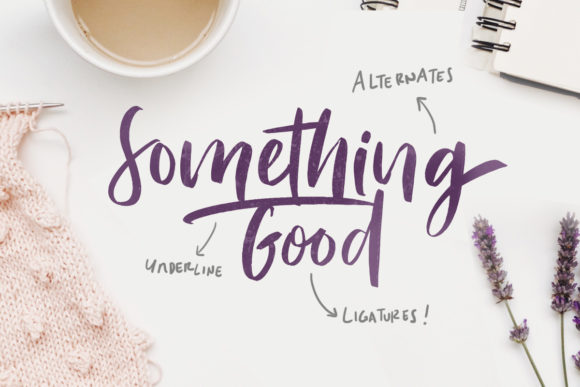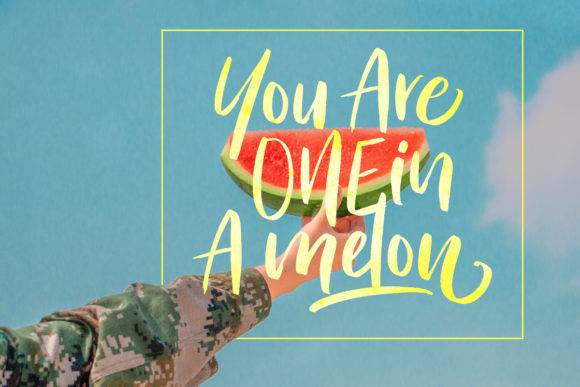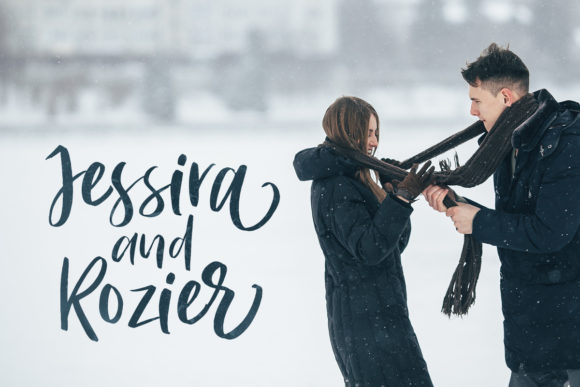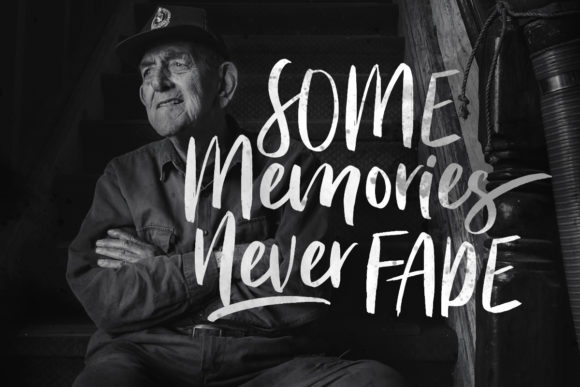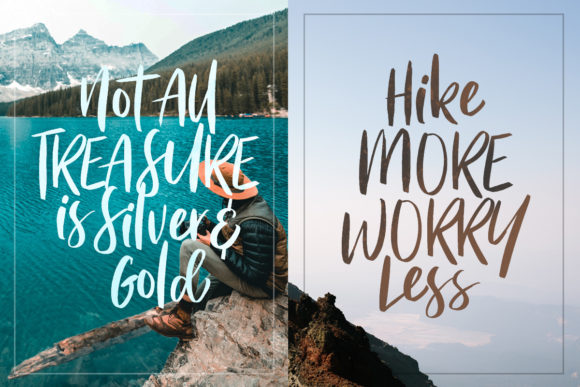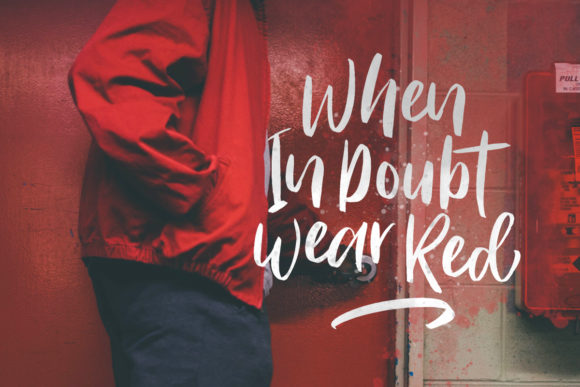
Unleash the Power of Bitter Rose Font: Elevate Your Designs with Elegance and Sophistication
In the world of typography, fonts play a crucial role in conveying the tone and personality of a design. For designers and crafters seeking to add a touch of elegance and uniqueness to their work, the Bitter Rose Font is an exceptional choice. This striking script font boasts bold letters with excellent readability, making it an ideal selection for a wide range of design projects that demand a distinctive look.
What Makes Bitter Rose Font Stand Out?
The Bitter Rose Font is not just another script font; it’s a statement piece. Its bold and eye-catching letters are carefully crafted to grab attention while maintaining clarity. This font’s great readability ensures that your message is conveyed effectively, whether you’re working on a logo, branding materials, invitations, or any other design that requires a unique and sophisticated touch.
Key Features of Bitter Rose Font
- Bold and Striking Letters: The Bitter Rose Font features bold letters that make a statement. Its striking appearance is perfect for designs that need to stand out.
- Great Readability: Despite its boldness, the font maintains excellent readability, ensuring that your text is easy to read and understand.
- Versatility: This font can be used across various design projects, from logos and branding to invitations and more, offering a versatile solution for designers.
- Bonus Textures: To further enhance your designs, the Bitter Rose Font comes with beautiful textures. These textures can add depth and a tactile feel to your work, making it even more engaging.
Whether you’re a professional designer or a crafter looking to add a personal touch to your projects, the Bitter Rose Font is an excellent addition to your toolkit. Its unique blend of boldness and elegance makes it suitable for a variety of applications, including:
- Logos and Branding: Create memorable logos and branding materials that stand out from the crowd.
- Invitations and Stationery: Add a touch of sophistication to your invitations, greeting cards, and stationery.
- Digital and Print Media: Use the font in digital media, such as social media graphics, or in print media, like brochures and posters.
Tips for Using Bitter Rose Font Effectively
To maximize the impact of the Bitter Rose Font, consider the following tips:
- Pair with Complementary Fonts: Combine the Bitter Rose Font with simpler fonts to create contrast and hierarchy in your designs.
- Experiment with Textures: Take advantage of the included textures to add a unique feel to your designs.
- Play with Colors: Don’t be afraid to experiment with different colors to find the perfect match for your design.
The Bitter Rose Font is a powerful tool for designers and crafters looking to infuse their work with elegance, sophistication, and a unique touch. With its bold letters, great readability, and included textures, this font is poised to elevate your designs to new heights. Explore the possibilities of the Bitter Rose Font and discover how it can transform your creative projects.